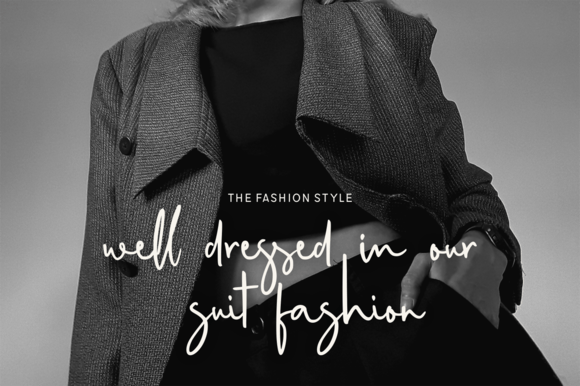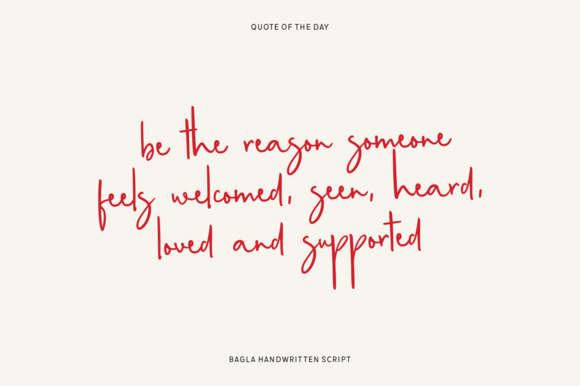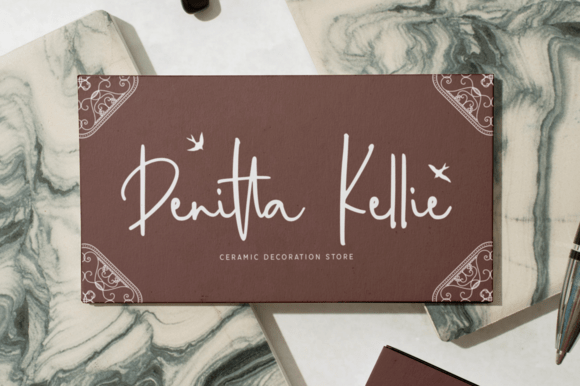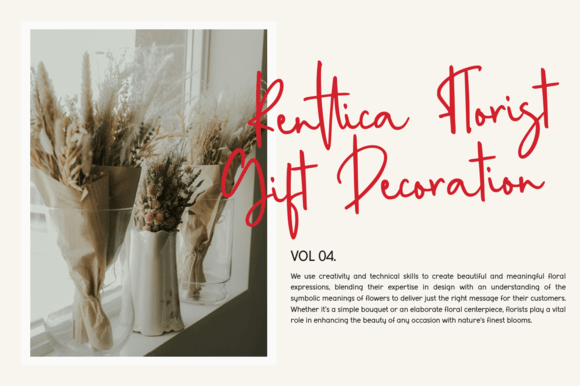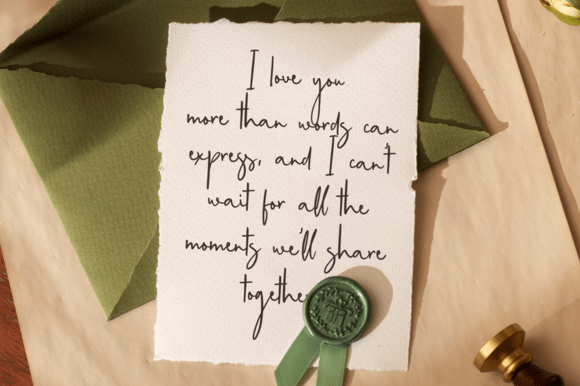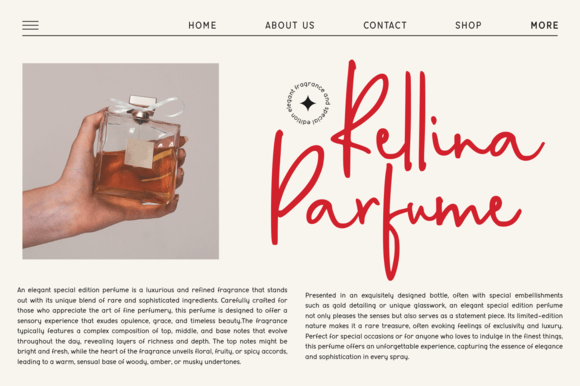
Introduction to Bagla Font
Bagla is a font designed with an elegant and playful touch, ideal for design projects that require a handwritten touch, whimsical impression, and graceful script style.
With soft curves and flowing lines, Bagla brings a personal and warm feel, suitable for various applications such as wedding invitations, logos, business card designs, to more creative and expressive branding designs .
Key Features of Bagla Font
Bagla Font offers exceptional quality and versatility, making it a valuable addition to your design toolkit. Whether you’re creating for personal projects or commercial use, Bagla Font delivers professional results.